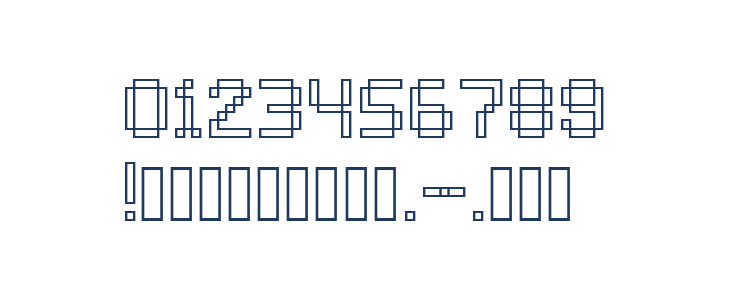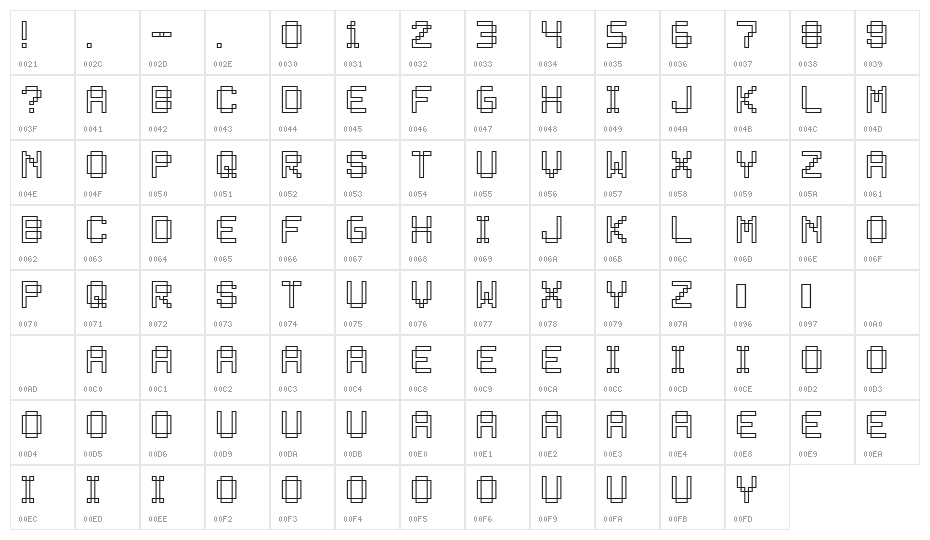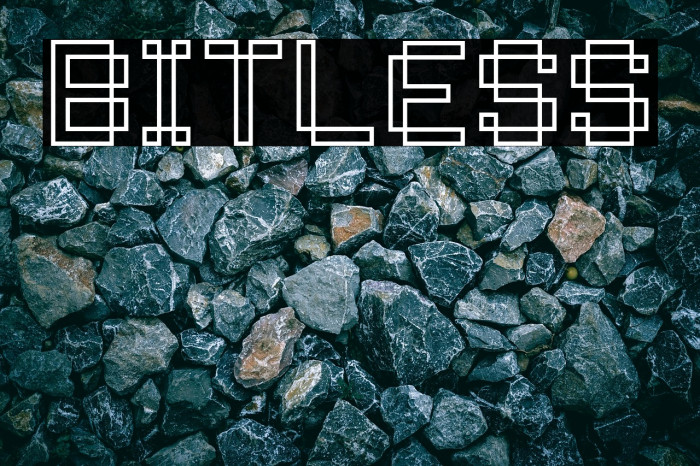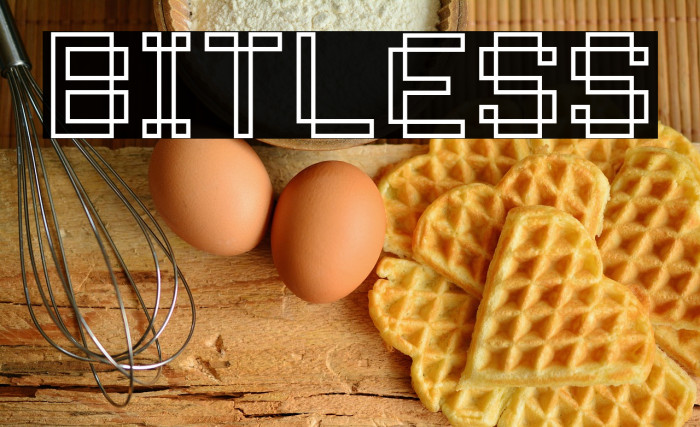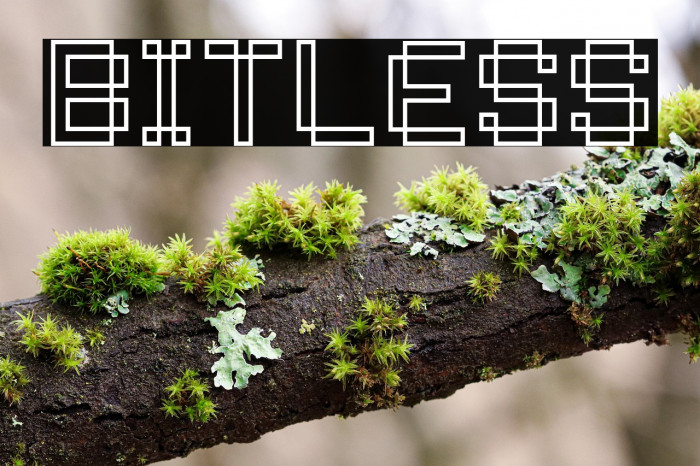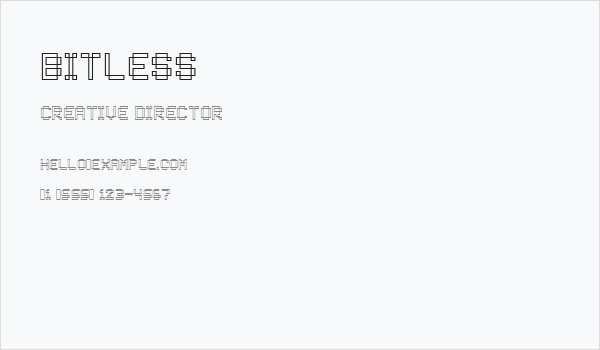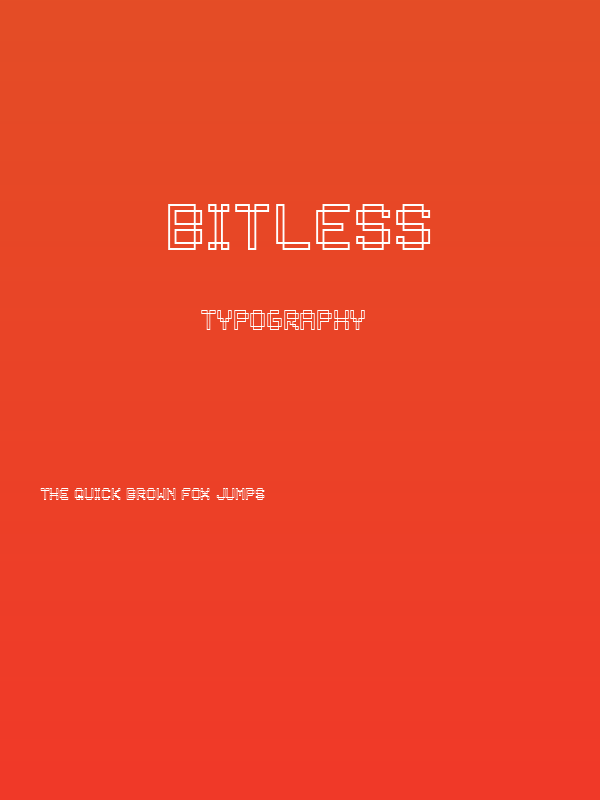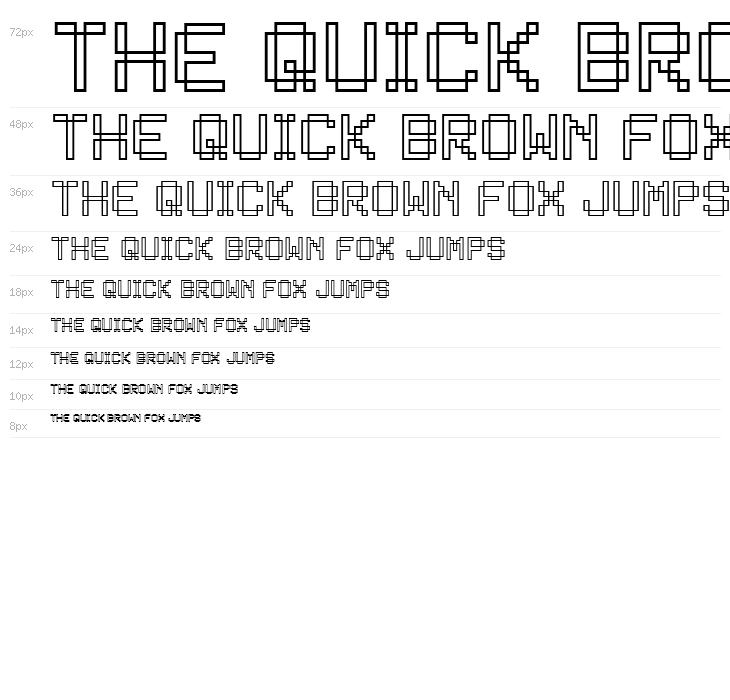
Bitless Font
Bitless Description
This font features a unique, geometric design with a pixelated, grid-like structure. Each character is constructed with a series of straight lines and right angles, giving it a digital, retro appearance reminiscent of early computer graphics or video games. The characters are uniform in height and width, creating a monospaced effect that enhances its structured look. The font's style is minimalistic yet bold, with a strong emphasis on clarity and readability. The absence of curves and the consistent line thickness contribute to its modern, tech-inspired aesthetic.
| Use Case | Logos, Headlines, Digital displays |
| Proposed Projects | Ideal for tech-themed designs, video game graphics, digital art, and retro-inspired projects. |